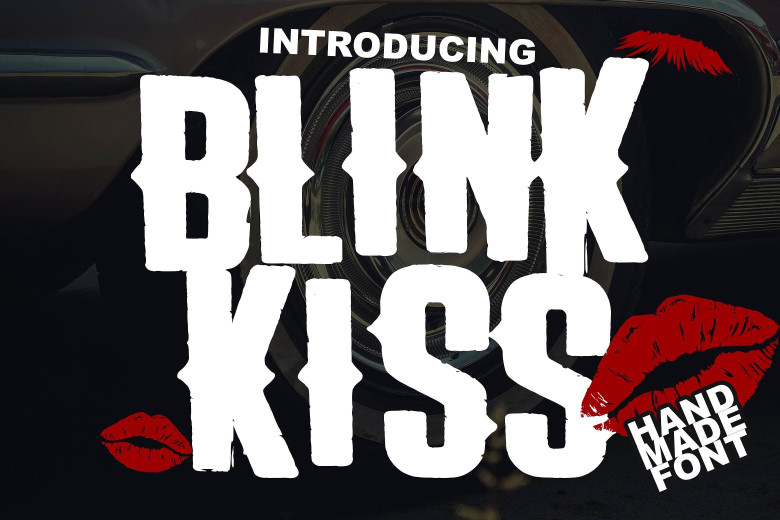
The Blink Kiss Logotype Font
This is a condensed display textured font. Each letters have a different textured and bold giving a more rugged vibe for whisky packaging. Thank you for looking Blink Kiss Font! It is designed and shared by Lettersiro. Blink Kiss Font is unique logotype font. This font is perfect for logo, quote, poster, playful lettering, for clothing, or any design projects. Just play the uppercase and lowercase character.